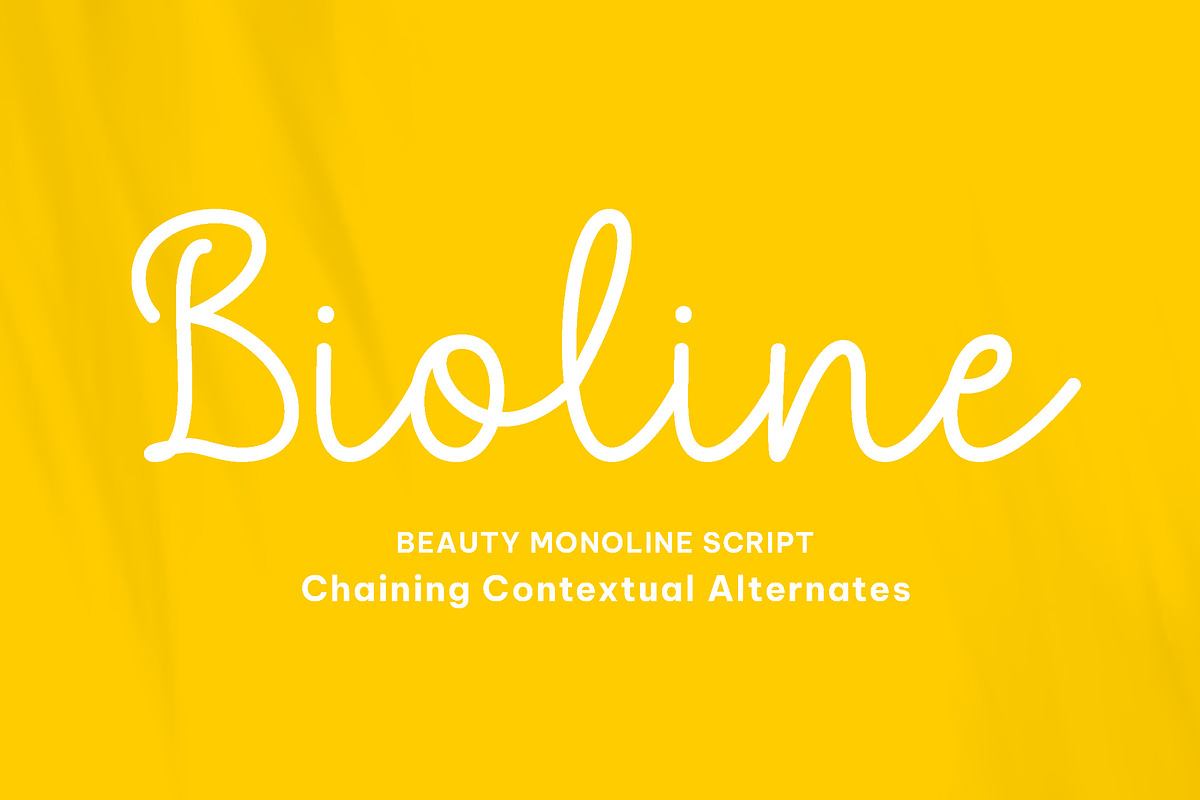
Bioline - Beauty Monoline script Free Download
Bioline - Beauty Monoline Script Font Free Download is an elegant and modern typeface designed with simplicity and style in mind. Featuring smooth, continuous monoline strokes, this font is perfect for creating chic logos, invitations, branding, and personal stationery. Its clean and contemporary design provides a sophisticated look, making it ideal for upscale projects, including wedding invitations, beauty brand logos, and creative campaigns. Whether you're designing for a modern business or a stylish event, Bioline - Beauty Monoline Script Font Free Download allows you to explore its sleek and graceful design in personal projects before purchasing a commercial license. Add elegance and refined beauty to your designs with this stunning monoline script font.